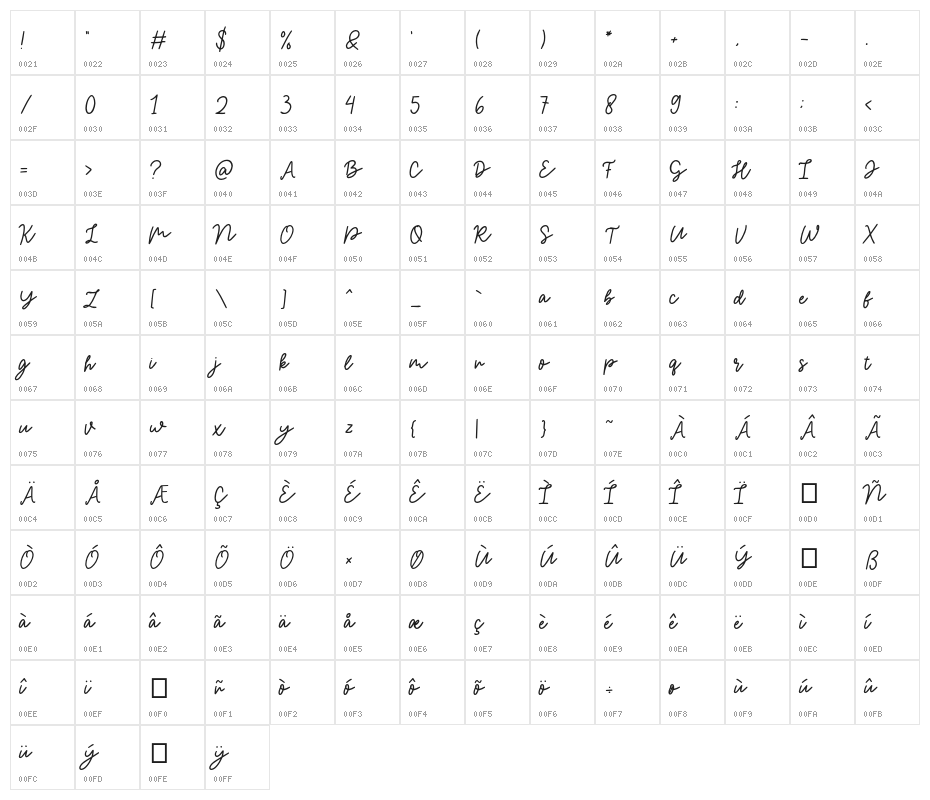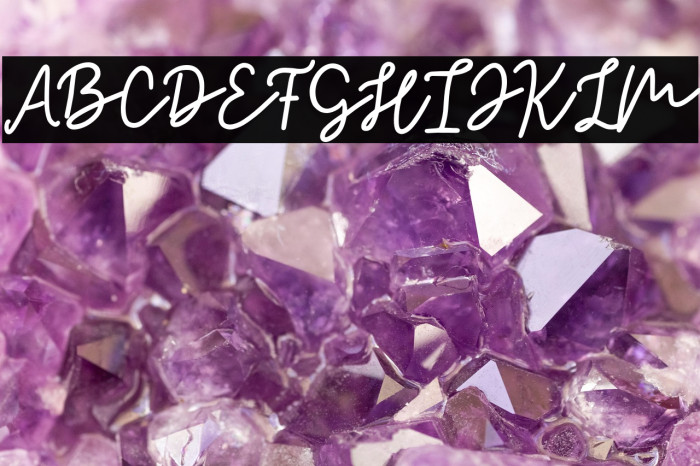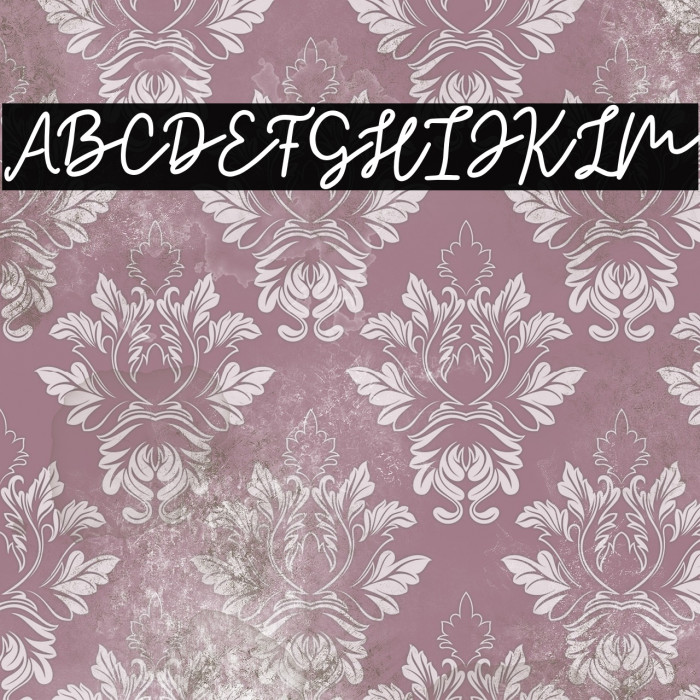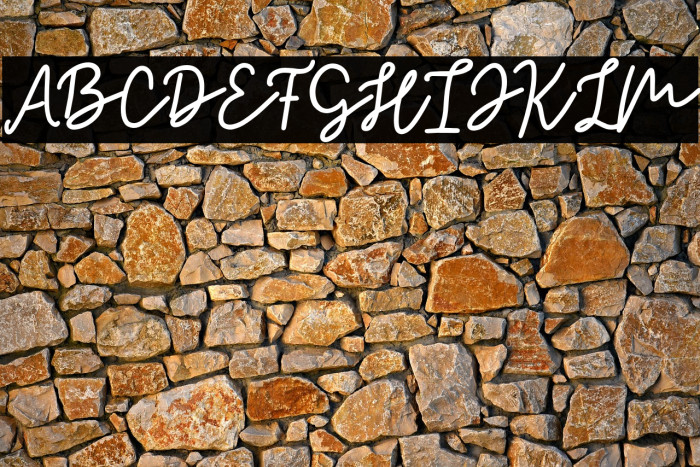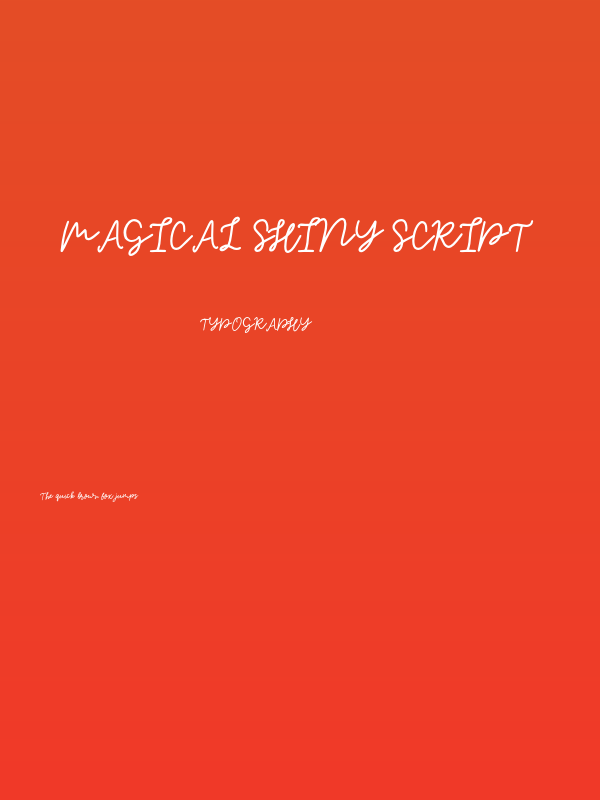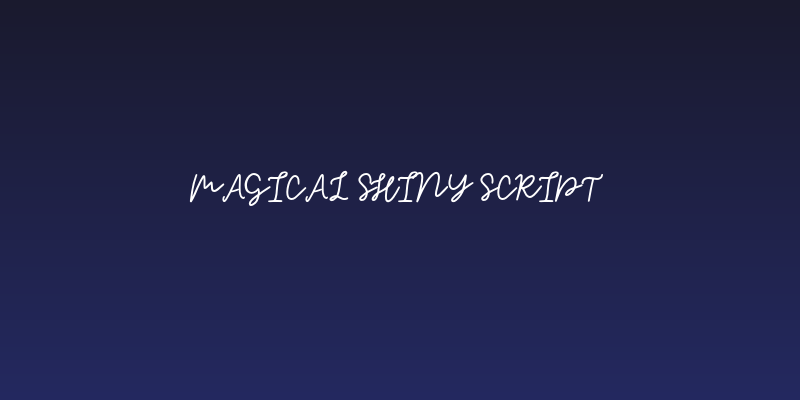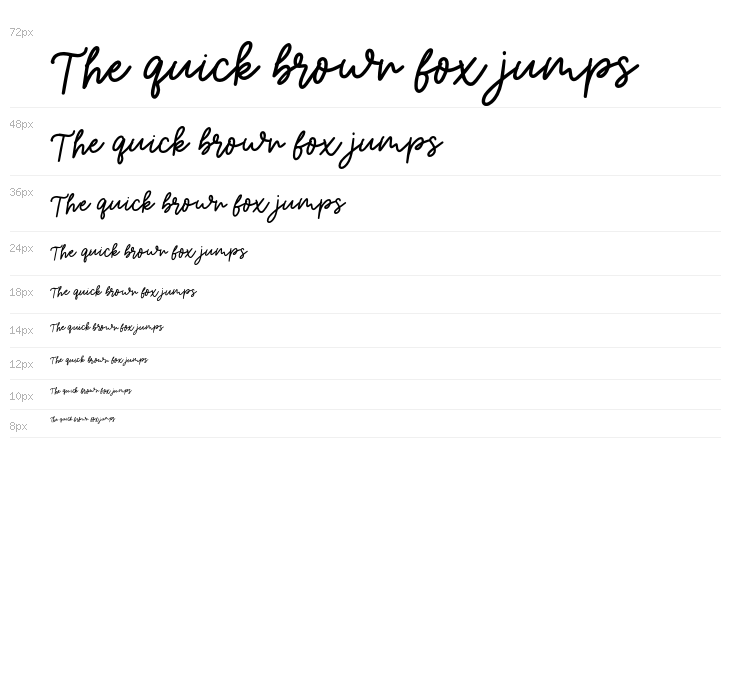
Magical Shiny Script Font
Magical Shiny Script Description
This font features a fluid and elegant script style, characterized by its smooth, flowing lines and a handwritten appearance. The uppercase letters are bold and slightly slanted, giving a sense of movement and dynamism. The lowercase letters maintain a consistent style, with rounded edges and a natural, cursive flow. Numbers and special characters are designed to match the overall aesthetic, ensuring a cohesive look across all elements. The font's design is both modern and timeless, making it versatile for various applications.
| Use Case | Logos, Invitations, Social Media |
| Proposed Projects | Ideal for wedding invitations, greeting cards, branding projects, and social media graphics. |